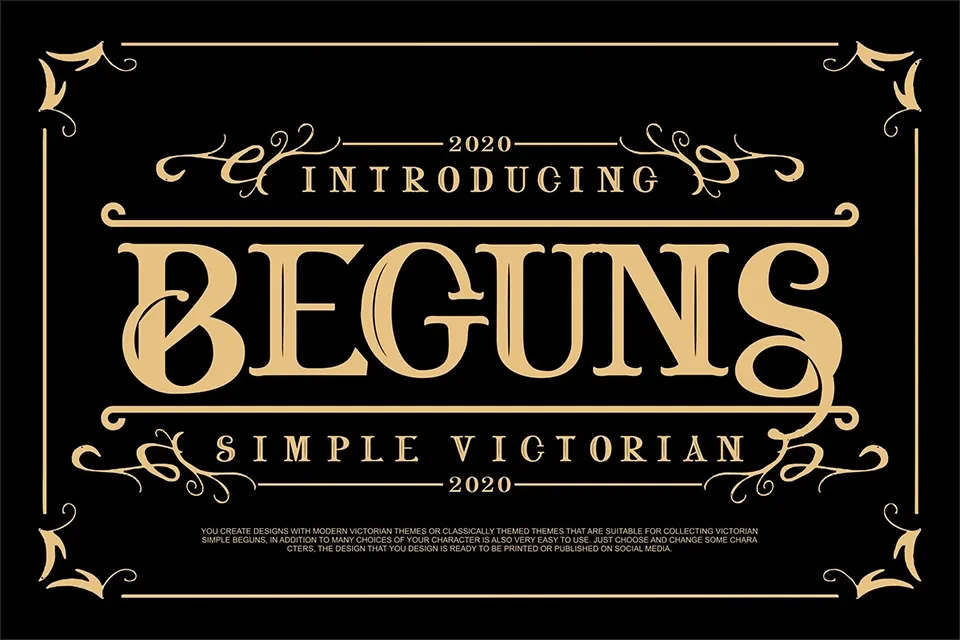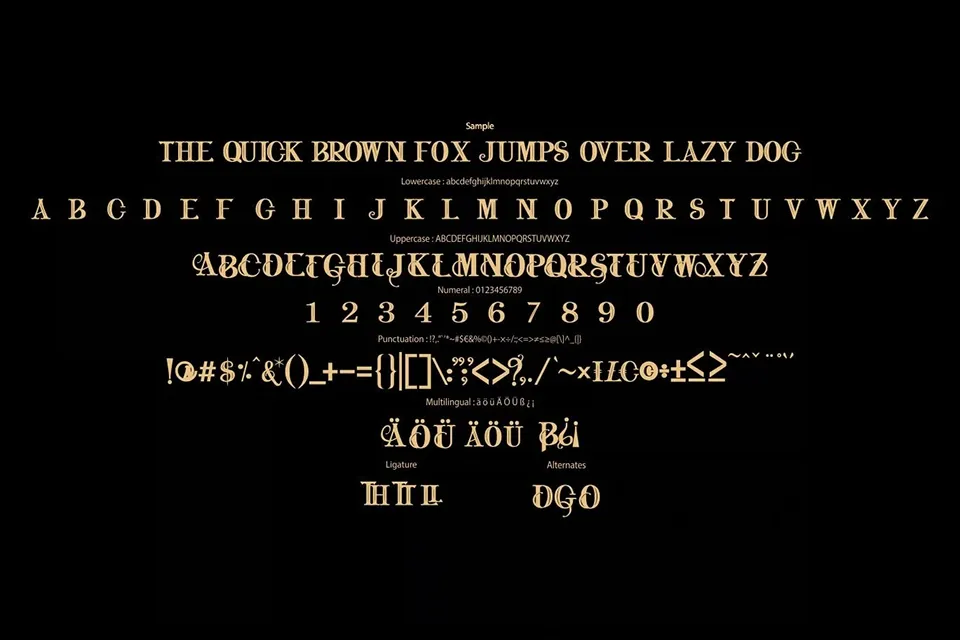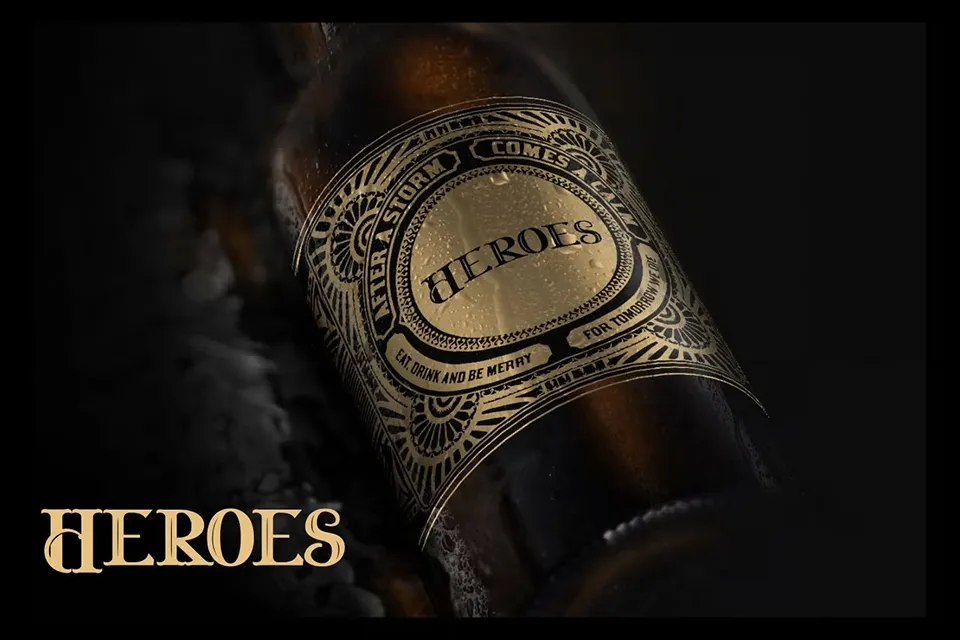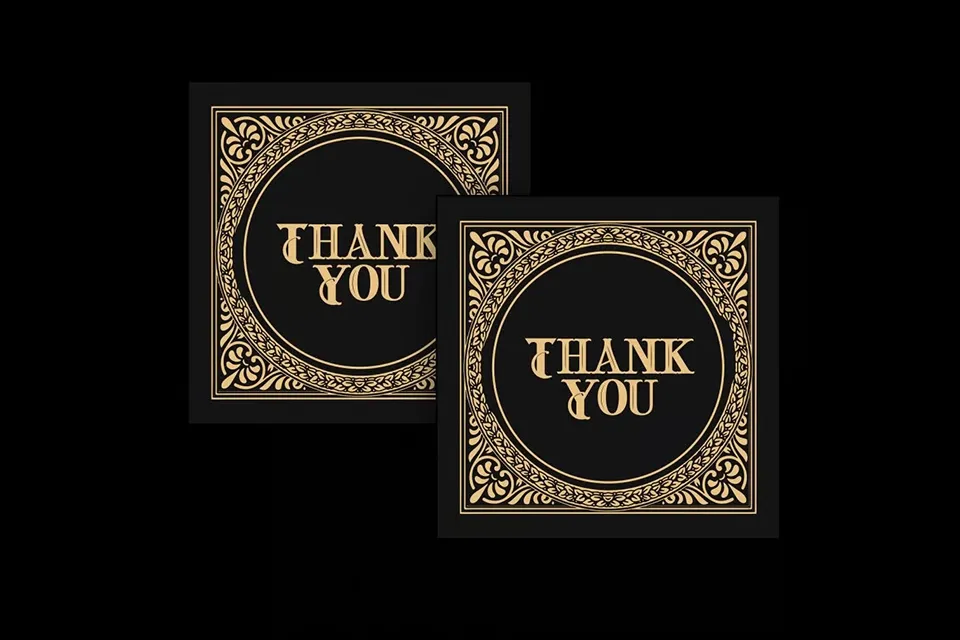
Beguns Font
Beguns Font is an incredibly bold and elegant display typeface. Masterfully designed to become a true favorite, this font has the potential to bring each of your creative ideas to the highest level!